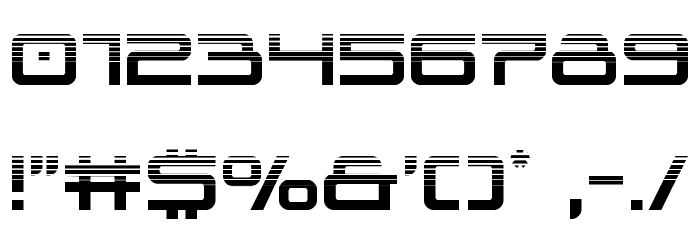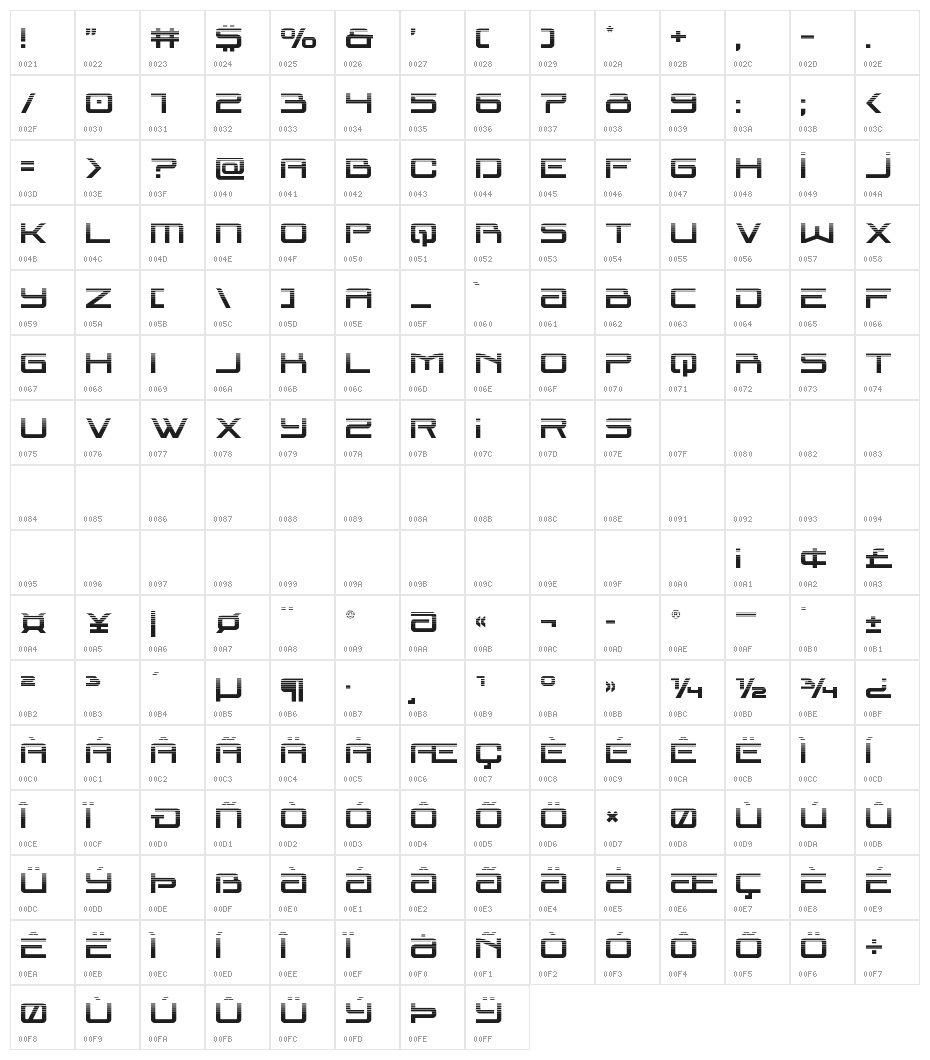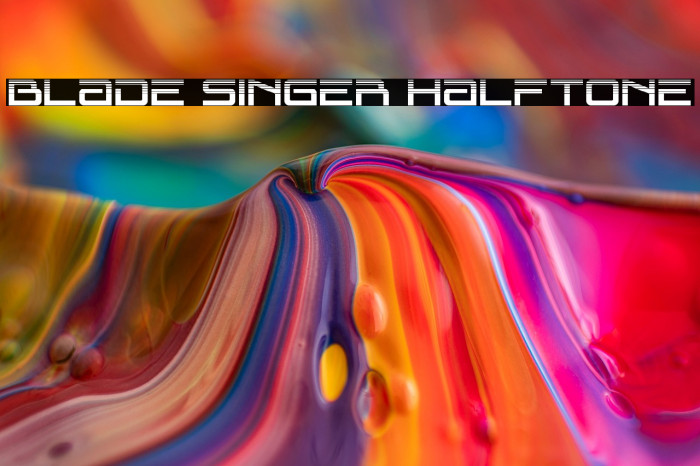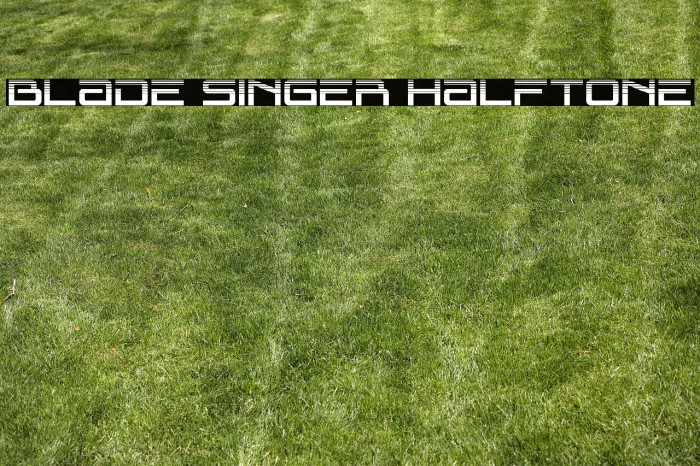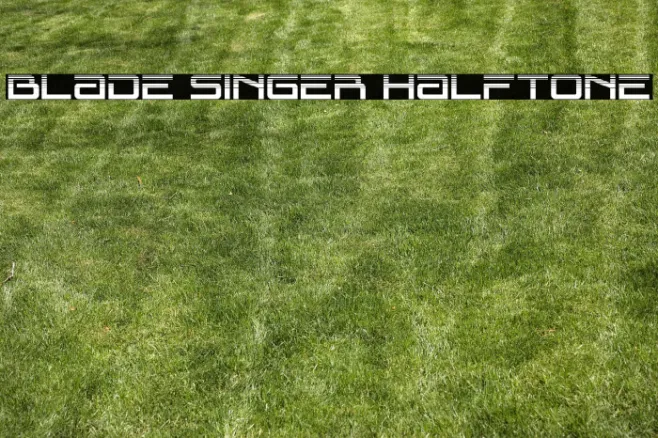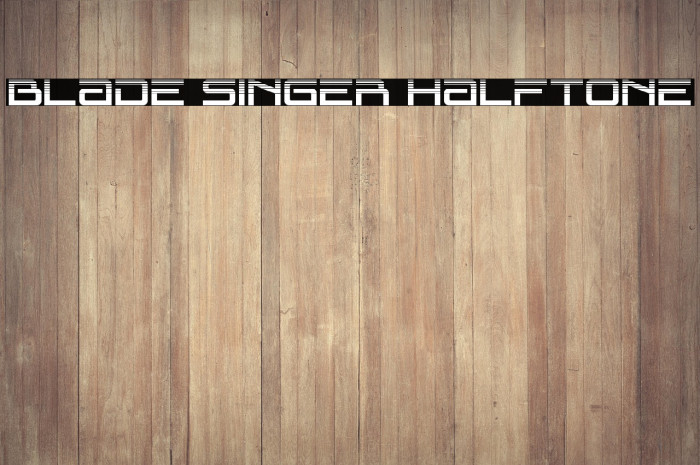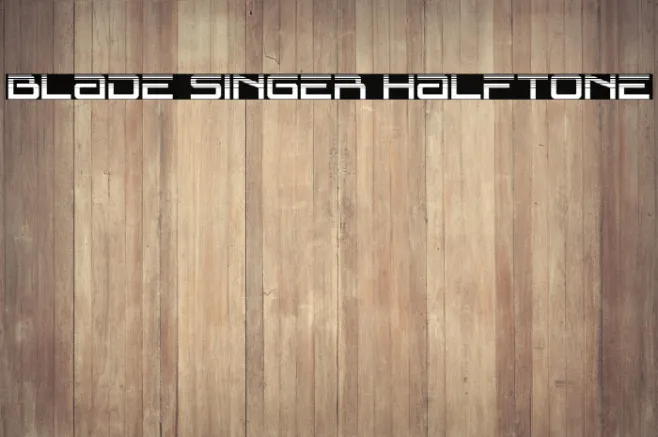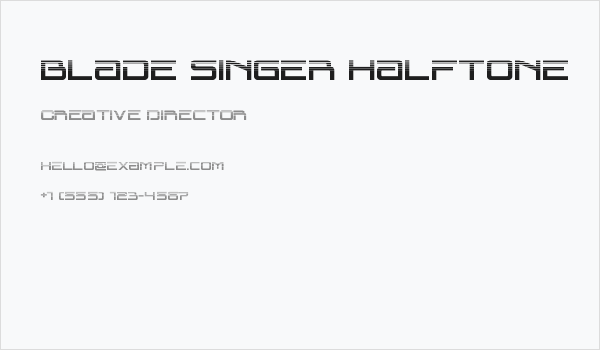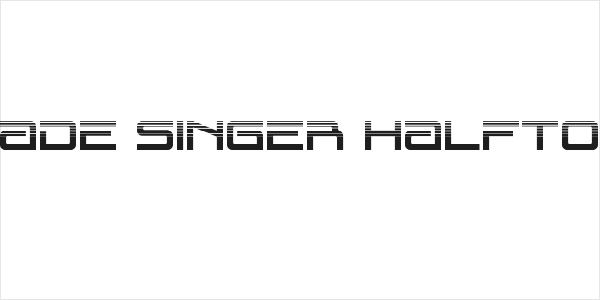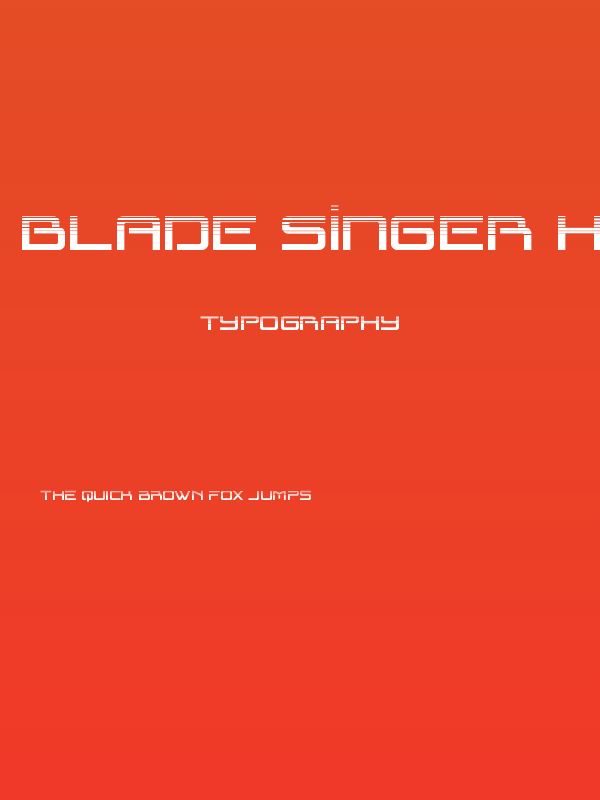
Blade Singer Halftone Font
Blade Singer Halftone Description
This font features a futuristic and digital aesthetic with a halftone effect that gives it a unique, layered appearance. The characters are constructed with horizontal lines that create a sense of movement and depth. The uppercase and lowercase letters maintain a consistent style, with sharp angles and geometric shapes. The numbers and special characters follow the same design principles, ensuring uniformity across the font. This style is reminiscent of digital displays or sci-fi themes, making it stand out with its bold and striking presence.
| Proposed Projects | Ideal for sci-fi themed projects, digital art, video game titles, and futuristic branding. |